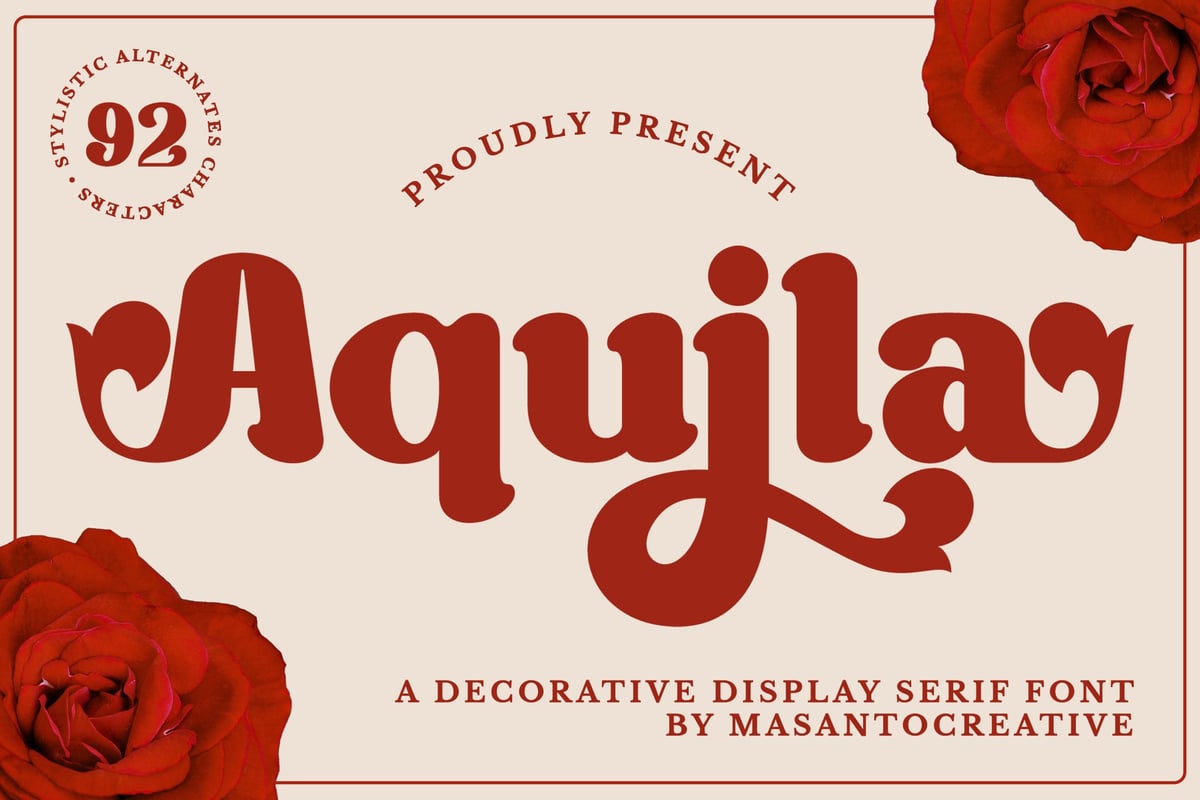
Aquila – Decorative Display Serif Font
Aquila is a bold, ornamental serif typeface built for brands and headlines that refuse to go unnoticed.
With its high-contrast letterforms, artistic curves, and refined decorative details, Aquila strikes a powerful balance between vintage charm and modern boldness. Whether you're crafting a statement logo, a striking poster, or an editorial layout, this typeface delivers personality with every glyph.
Its timeless character and strong visual presence make it equally at home in classic luxury branding and contemporary design projects that demand a distinctive typographic voice.
- Ligatures and stylistic alternates (92 alternate characters)